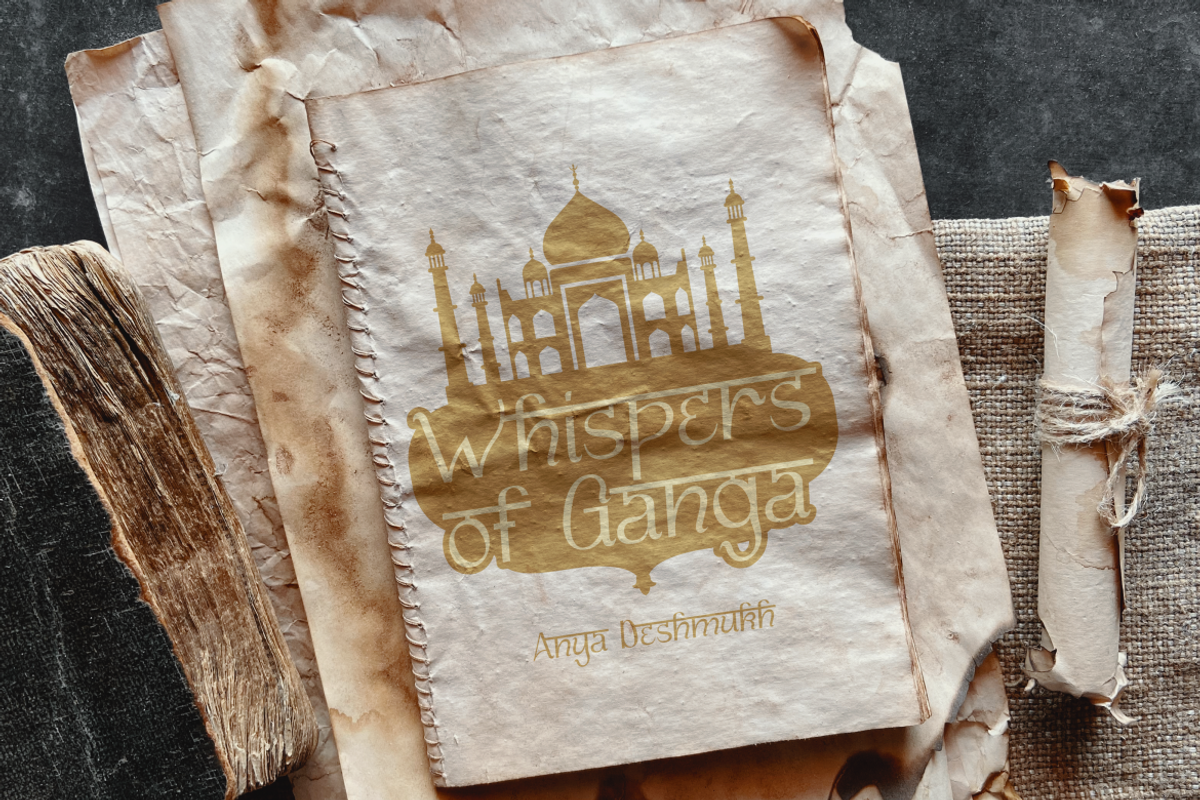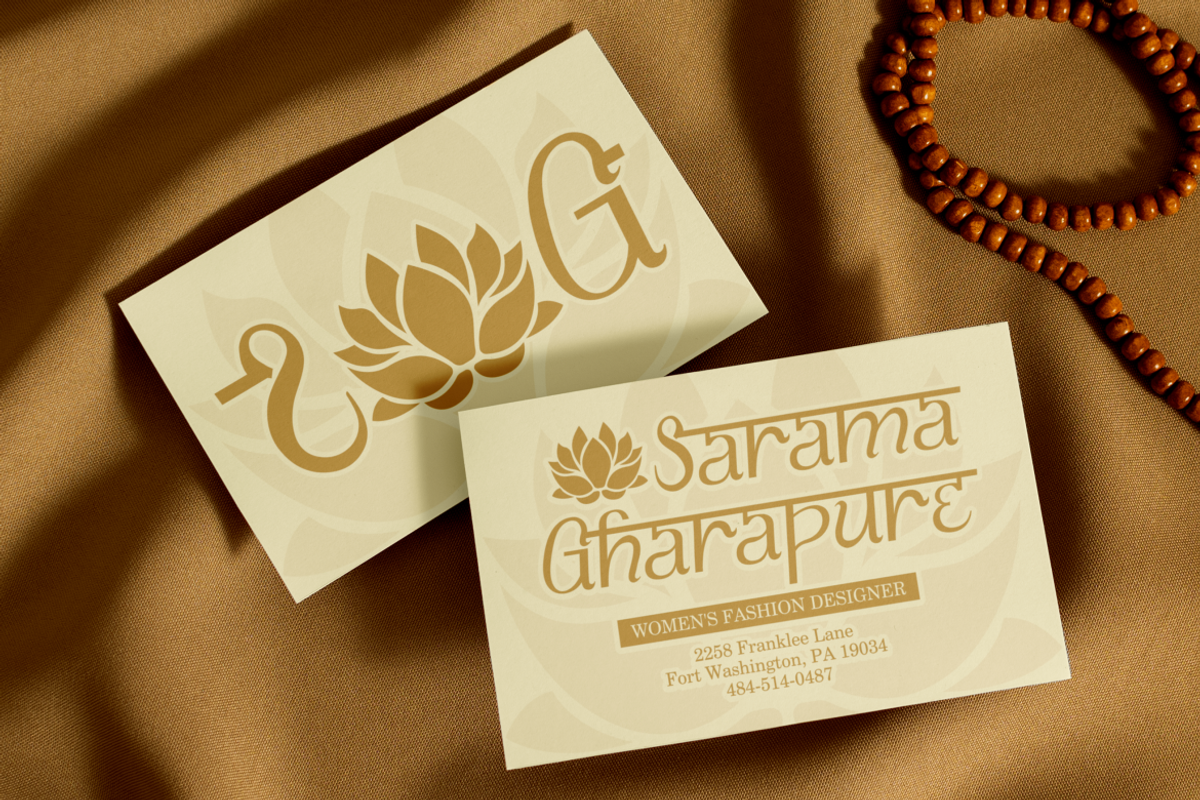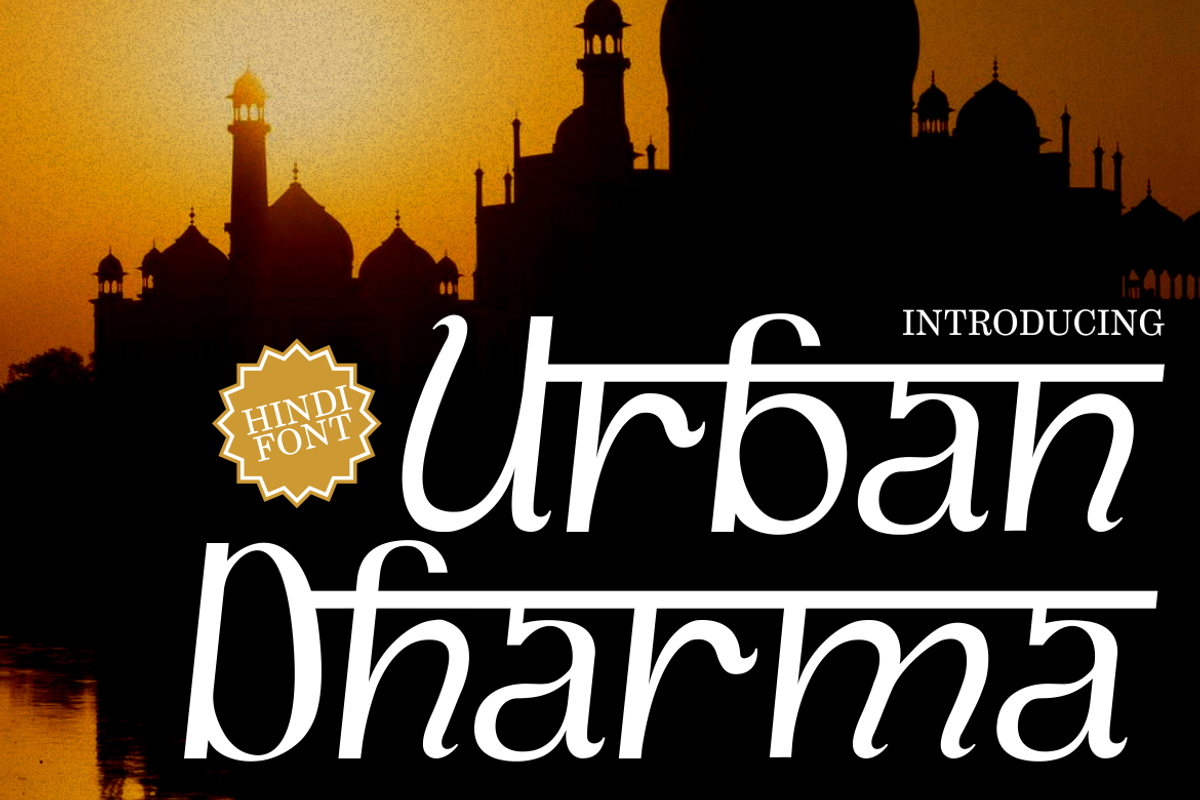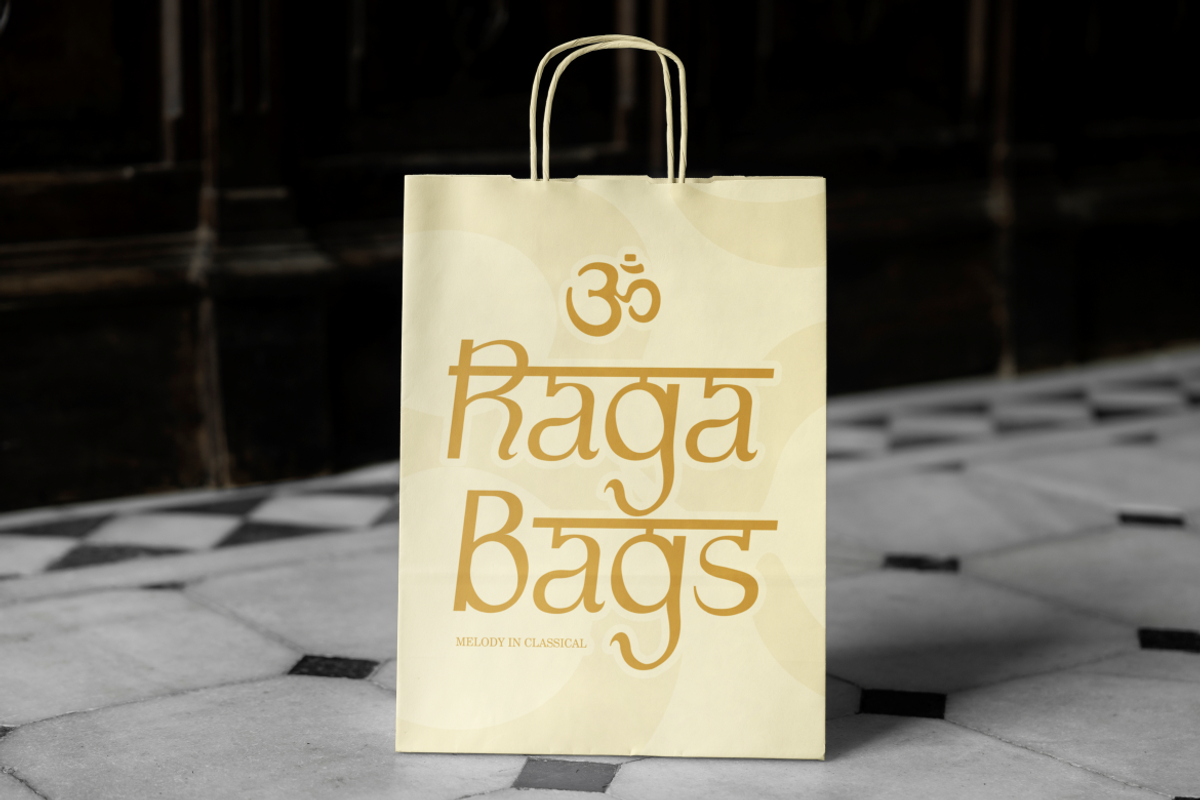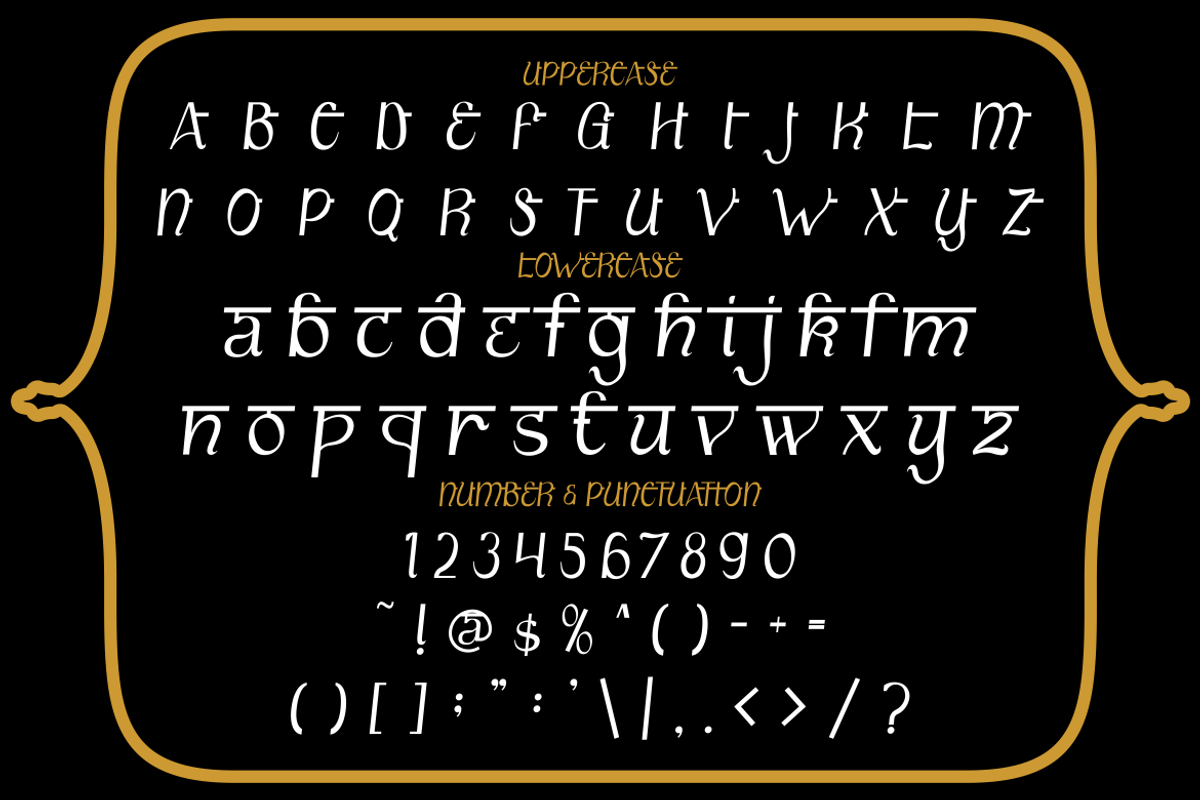
Urban Dharma Hindi Font
Urban Dharma Hindi Font beautifully bridges Indian tradition with modern elegance. The font’s design features tall, refined letterforms accented by horizontal strokes that echo classic Devanagari structure. Each character has graceful curvature and balanced proportions, blending sharp edges with soft, flowing lines. The thin to medium weight of the strokes gives it a sophisticated and clean appearance, ideal for both decorative and professional use. Urban Dharma Hindi Font exudes a sense of cultural depth and artistic balance, making it perfect for designers seeking a typeface with spiritual and aesthetic harmony.
This typeface works exceptionally well for logo design, branding, invitations, product packaging, magazine covers, and editorial projects that celebrate cultural identity. It adds a touch of heritage to modern compositions, making it a versatile choice for luxury or artisanal branding. Its distinctive Hindi-style influence enhances any design with authenticity and sophistication, especially for businesses inspired by Indian art, wellness, yoga, or spirituality. Urban Dharma Hindi Font brings meaning and soul to typography, combining ancient inspiration with timeless design appeal. Whether used for headlines, posters, or branding, this font delivers visual poetry and cultural resonance in every letter.